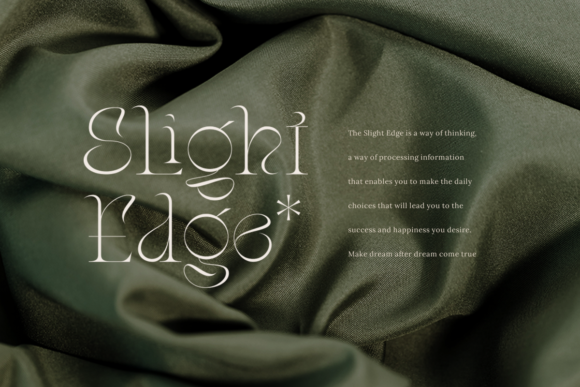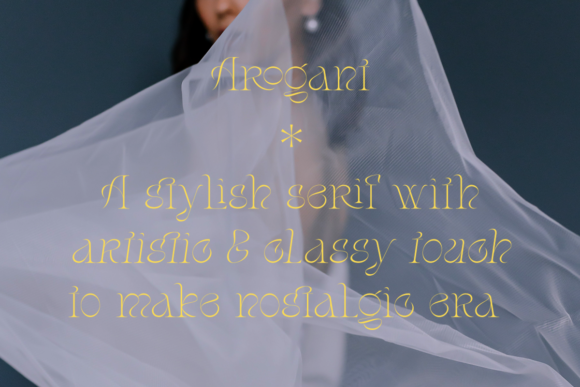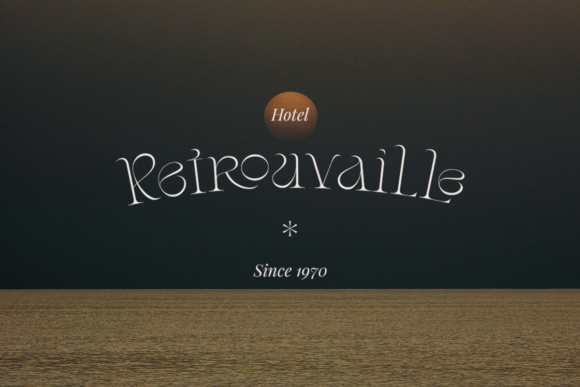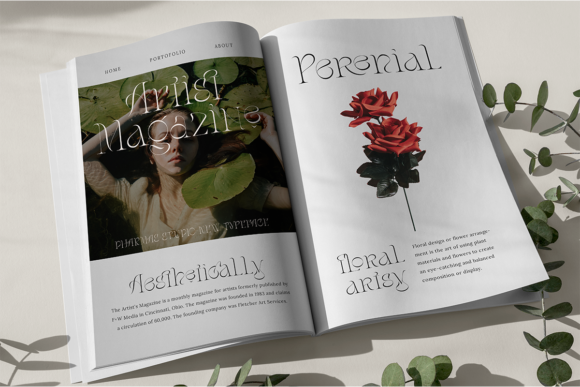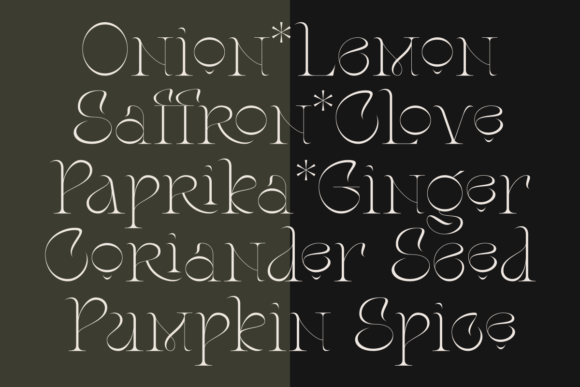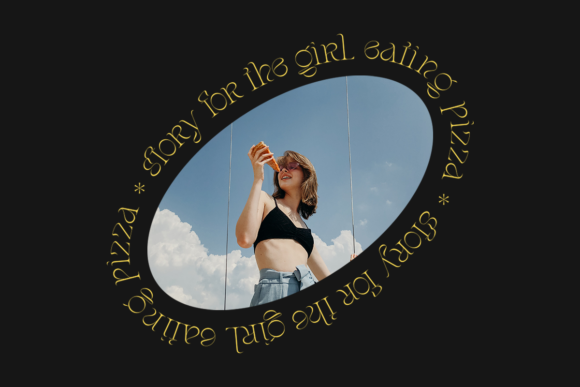
Arogant Font: Elevate Your Designs with a Fresh, Artsy, and Classy Serif
In the world of typography, fonts play a crucial role in conveying the tone and aesthetic of a design. For designers and crafters looking to add a touch of sophistication, nostalgia, and artistic flair to their projects, the Arogant font is an excellent choice. This stylish serif font boasts a unique blend of thin letter anatomy, artistic alternates, and beautiful ligatures, making it perfect for creating chic, luxurious, and retro-inspired designs.
The Aesthetic of Arogant Font
Arogant font is characterized by its slender letterforms, which evoke a sense of elegance and refinement. The font’s design is reminiscent of classic serif fonts, but with a modern twist that sets it apart from more traditional typefaces. The thin letter anatomy of Arogant font lends itself well to creating sophisticated and high-end designs, while its unique alternates and ligatures add a touch of artistic flair.
Key Features of Arogant Font
- Thin Letter Anatomy: Arogant font’s slender letterforms create a sense of elegance and refinement, perfect for designs that require a touch of sophistication.
- Unique Alternates: The font comes with a range of unique alternates that allow designers to add variety and creativity to their typography.
- Beautiful Ligatures: Arogant font features beautiful ligatures that add a touch of artistry to any design.
- Italic Version: The font comes with an italic version, making it perfectly suitable for creating elegant and simple designs.
Use Cases for Arogant Font
Arogant font is versatile and can be used in a variety of design projects, including:
- Branding: Create luxurious and sophisticated brand identities with Arogant font.
- Poster Designs: Add a touch of nostalgia and artistic flair to your poster designs with Arogant font.
- Books: Use Arogant font to create elegant and refined book designs that evoke a sense of classic sophistication.
- Fashion: Arogant font is perfect for fashion designs that require a touch of luxury and glamour.
- Social Media Design: Create stylish and engaging social media graphics with Arogant font.
- Logos: Use Arogant font to create unique and memorable logos that stand out from the crowd.
Why Choose Arogant Font?
With so many fonts available, why choose Arogant font for your design projects? Here are just a few reasons:
- Unique Aesthetic: Arogant font boasts a unique and distinctive aesthetic that sets it apart from other serif fonts.
- Versatility: The font is versatile and can be used in a variety of design projects, from branding to social media graphics.
- Elegance: Arogant font exudes elegance and sophistication, making it perfect for designs that require a touch of luxury.
- Easy to Read: Despite its slender letterforms, Arogant font is easy to read, making it perfect for body text and headlines.
In conclusion, Arogant font is a stylish and sophisticated serif font that is perfect for designers and crafters looking to add a touch of elegance, nostalgia, and artistic flair to their designs. With its unique aesthetic, versatility, and elegance, Arogant font is an excellent choice for a wide range of design projects. Whether you’re creating branding, poster designs, books, or social media graphics, Arogant font is sure to elevate your designs to the next level.
So why not give Arogant font a try? With its beautiful ligatures, unique alternates, and slender letter anatomy, it’s the perfect choice for designers and crafters looking to create chic, luxurious, and retro-inspired designs.